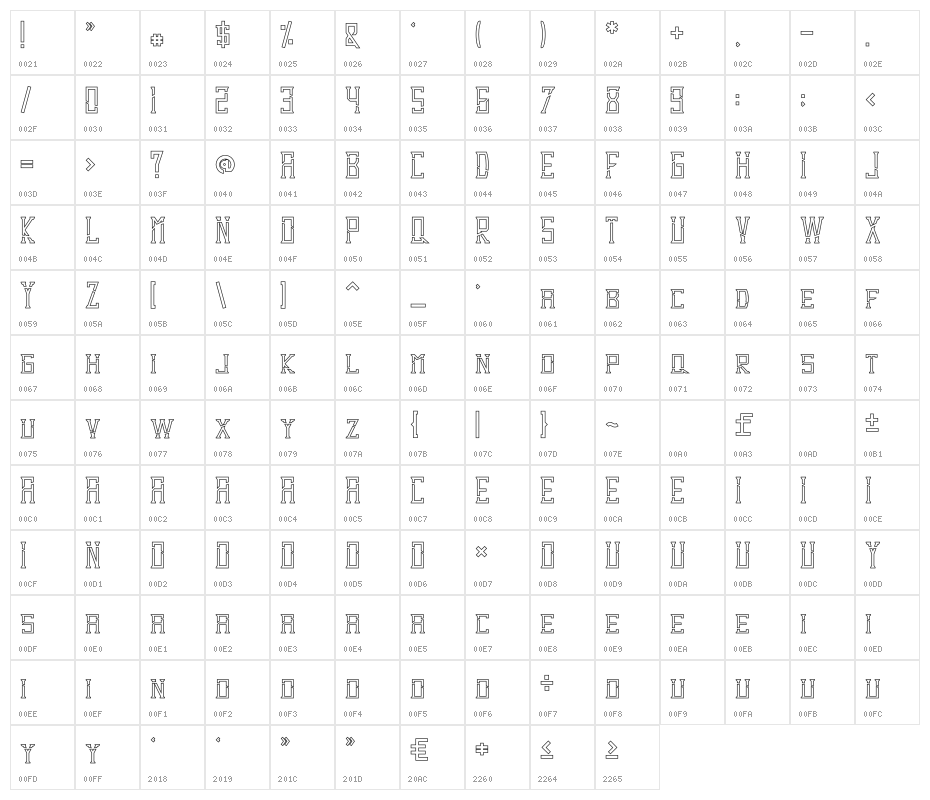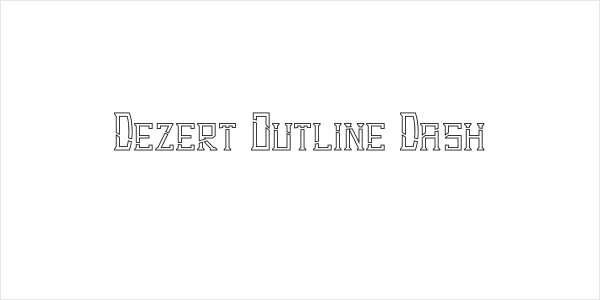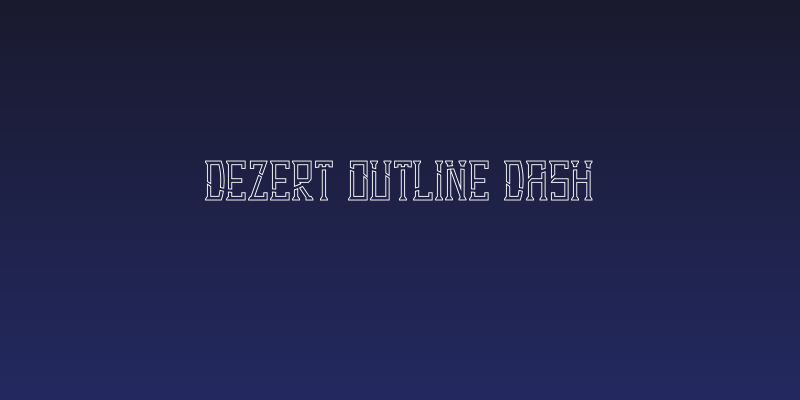
Dezert Outline Dash Font
Dezert Outline Dash Description
This font features a unique outline style with a dash pattern, giving it a distinct and modern appearance. The characters are constructed with bold, geometric lines that form a hollow interior, creating a striking visual effect. The uppercase letters are angular and sharp, while the lowercase letters maintain a consistent style, ensuring readability. Numbers and special characters follow the same design principles, making them cohesive with the alphabet. The font's outline and dash design make it ideal for eye-catching displays and creative projects.